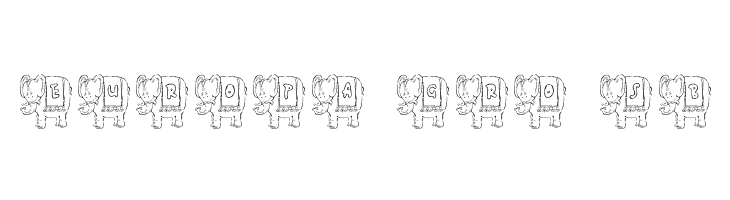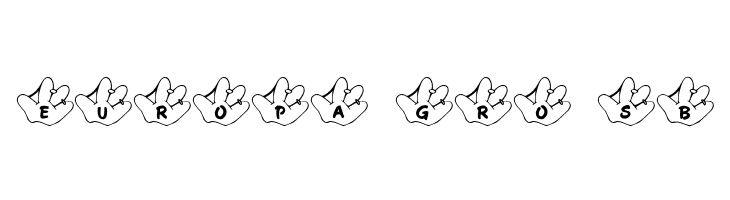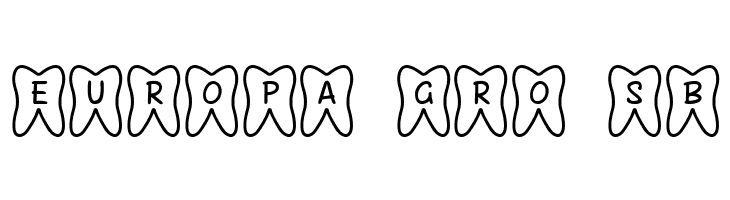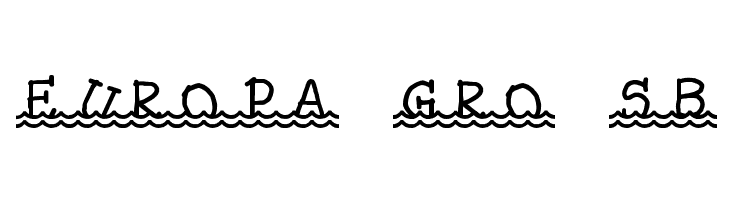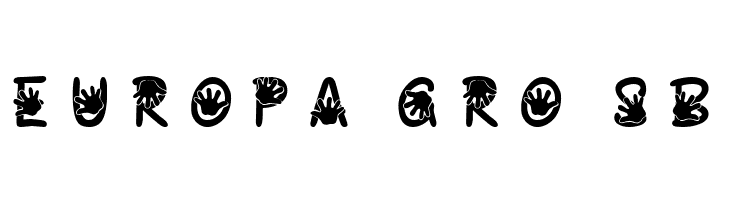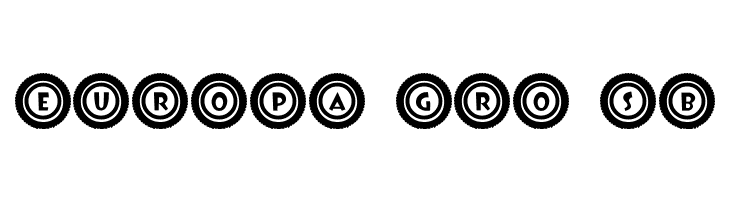
A playful font with letters inside open book illustrations, perfect for creative projects.
A playful, cartoon-themed font with each letter displayed on a character.
A whimsical serif font with decorative glasses, perfect for magical themes.
A whimsical font with characters embedded in truck designs, perfect for playful projects.
A casual, handwritten font with a playful and approachable style.
A playful font with letters inside cartoon elephants, perfect for fun and creative projects.
A bold, playful font with handprint motifs on each letter.
A playful font with letters embedded in gorilla silhouettes, ideal for decorative use.
A whimsical font featuring a Kokopelli figure integrated into each character.
A bold, sans-serif font with characters encased in a Statue of Liberty-themed emblem.
A playful font with characters enclosed in steering wheels, perfect for automotive-themed designs.
A bold, decorative font with letters enclosed in tire-like circles.
A playful font with letters inside cartoonish hand shapes, perfect for creative projects.
A decorative font with characters inside sheriff badge shapes, perfect for Western-themed designs.
A decorative font with letters inside a pregnant silhouette, ideal for maternity themes.
A whimsical, castle-themed decorative font ideal for magical and fantasy projects.
A playful font with characters enclosed in alarm clock designs, ideal for creative projects.
A whimsical, cartoonish font with bold, rounded characters featuring playful elements.
A whimsical and elegant script font with flowing, cursive letters.
Cartoonish car dingbat font with bold, simple shapes.
A playful font with letters embedded in cartoon characters, perfect for children's designs.
A whimsical font with rag doll illustrations surrounding each letter.
A playful font with characters inside bowling pins and balls.
A playful font with letters embedded in school-themed doodles.
A playful font with letters inside car silhouettes, perfect for fun and whimsical projects.
A whimsical font with winged circular letters, perfect for fantasy themes.
A playful, cartoonish font with Spartan characters integrated into each letter.
A whimsical decorative font with birds carrying letters, perfect for playful designs.
A playful, lemonade-themed decorative font with bold, whimsical characters.
A playful and whimsical font with bold, decorative characters and unique circular elements.
A playful, wave-themed decorative font ideal for nautical designs.
A modern, inclusive font combining letters with the wheelchair symbol.